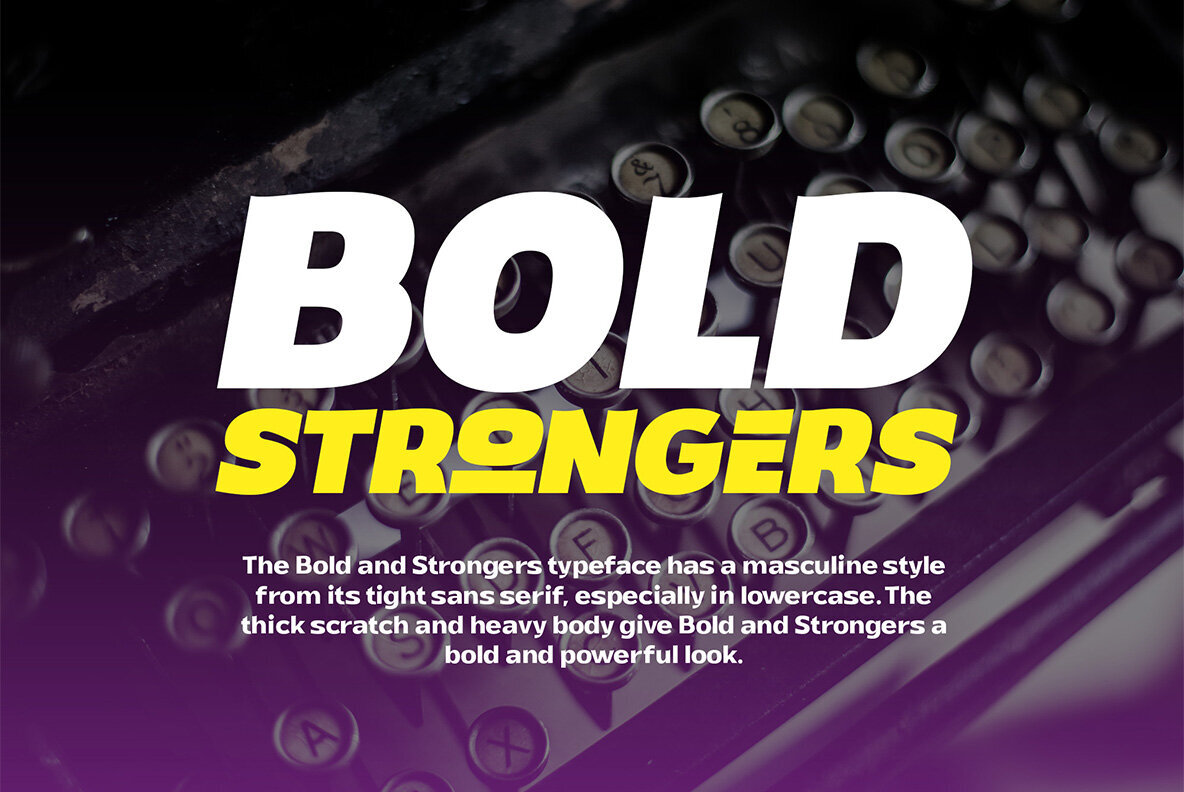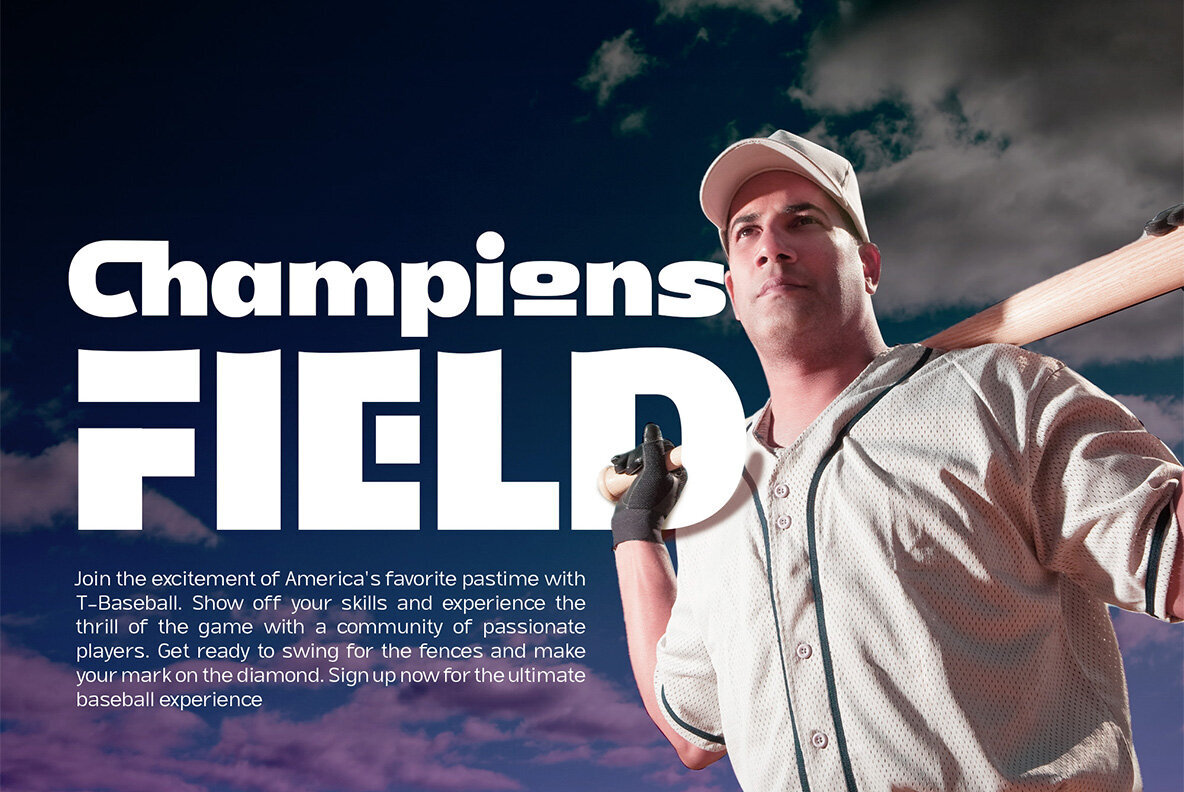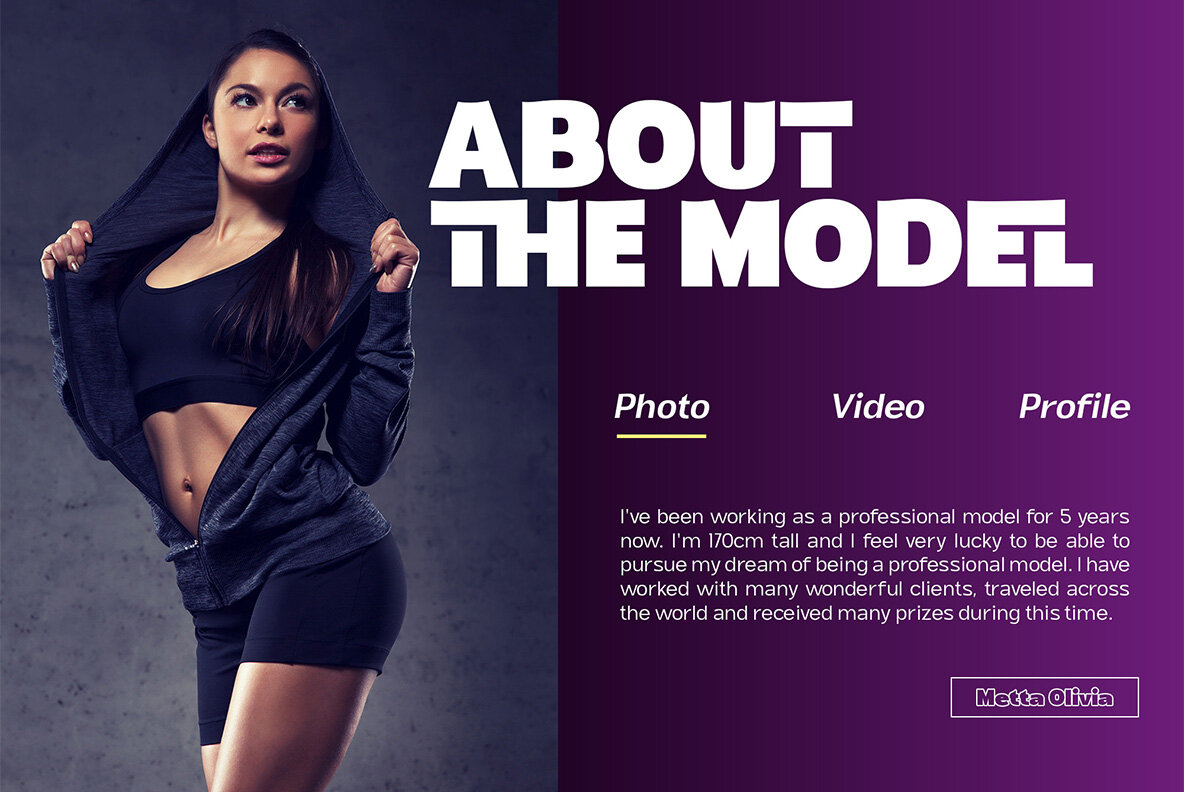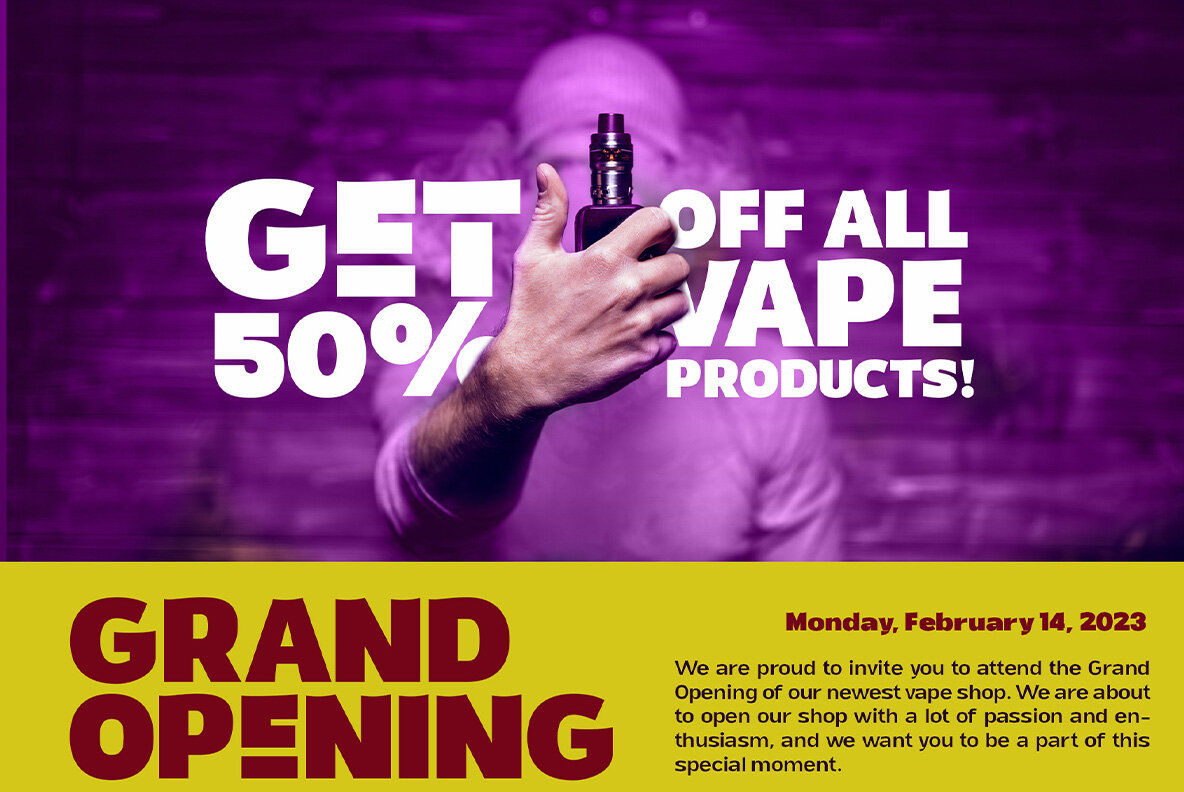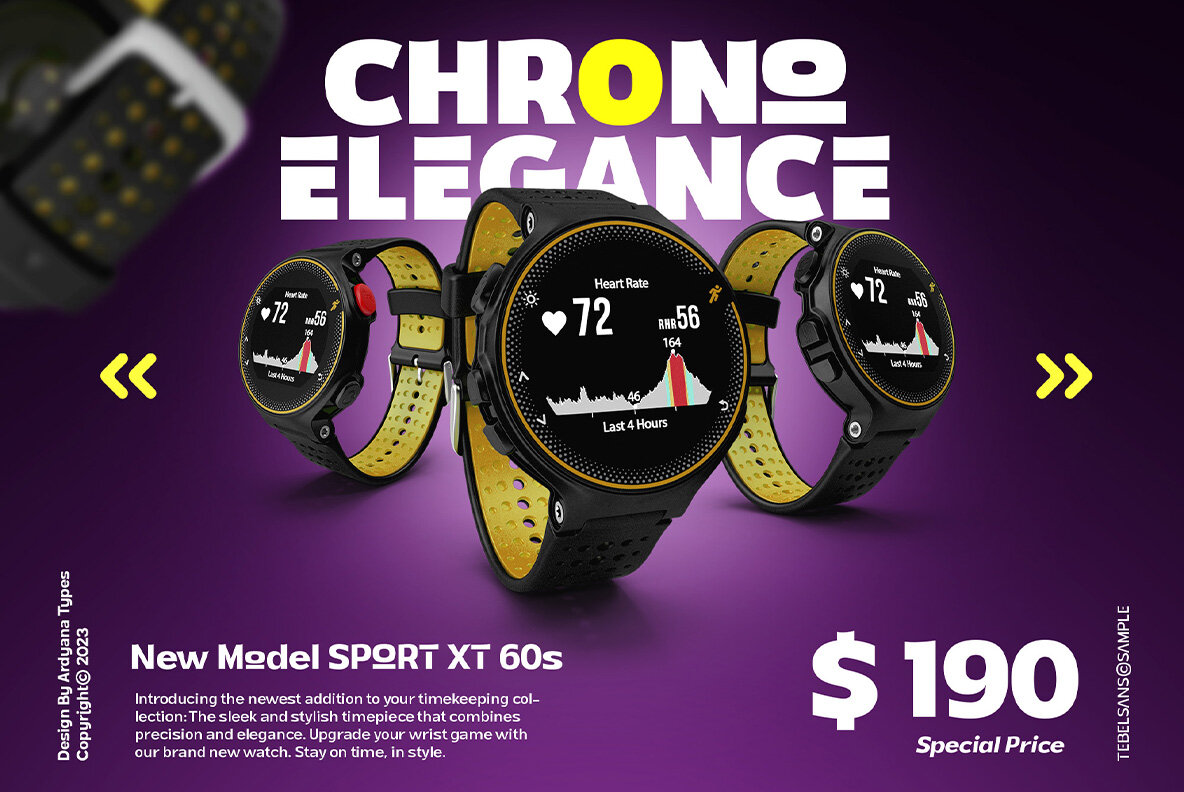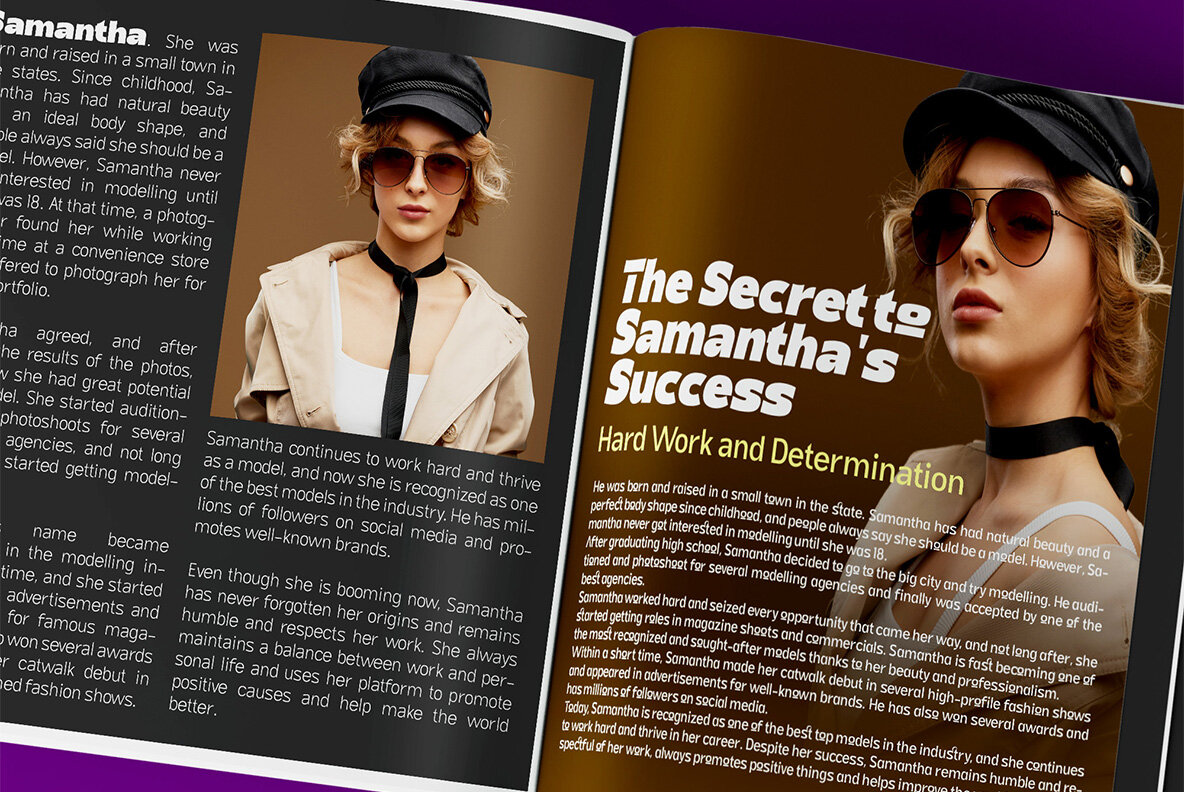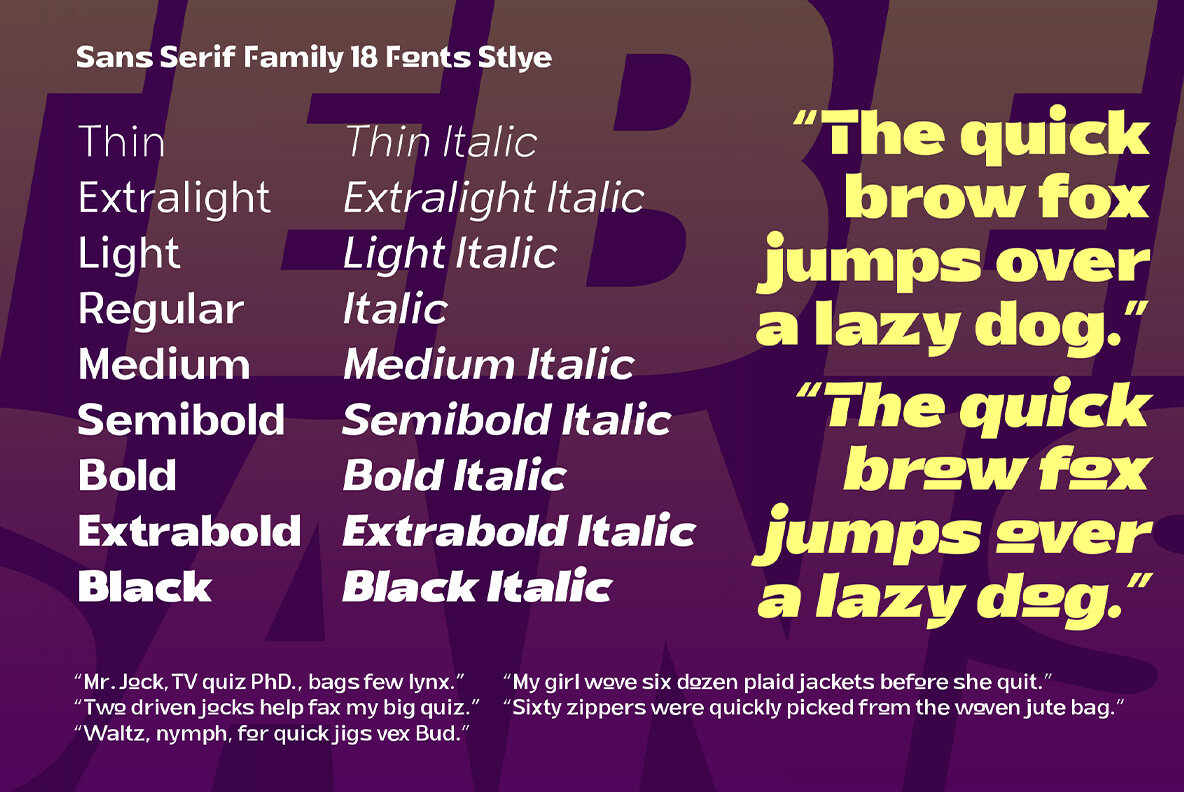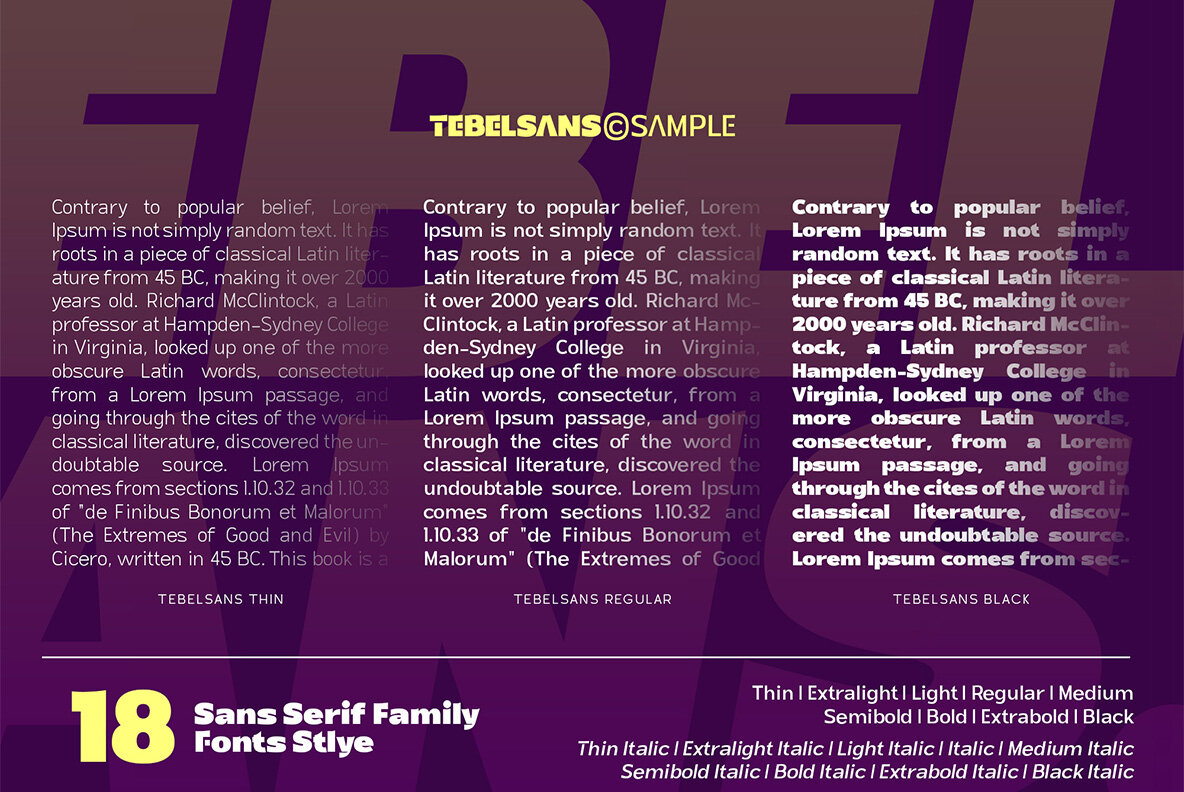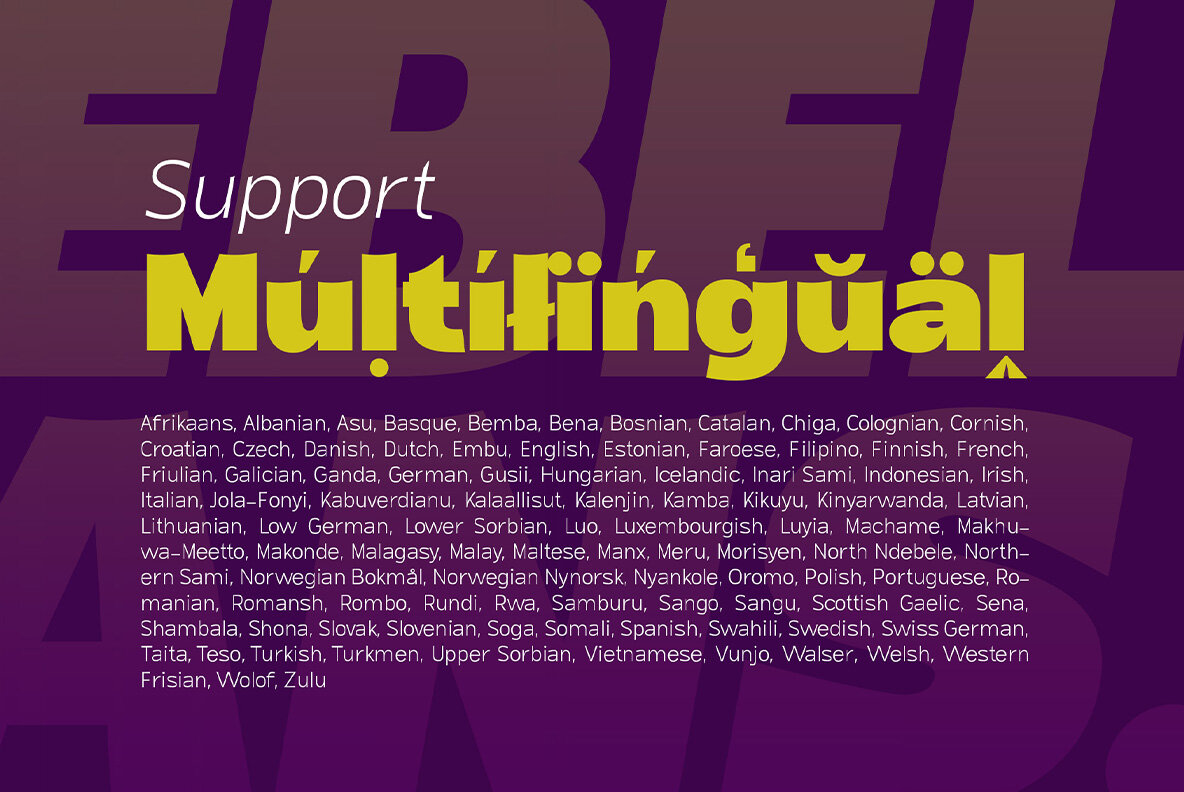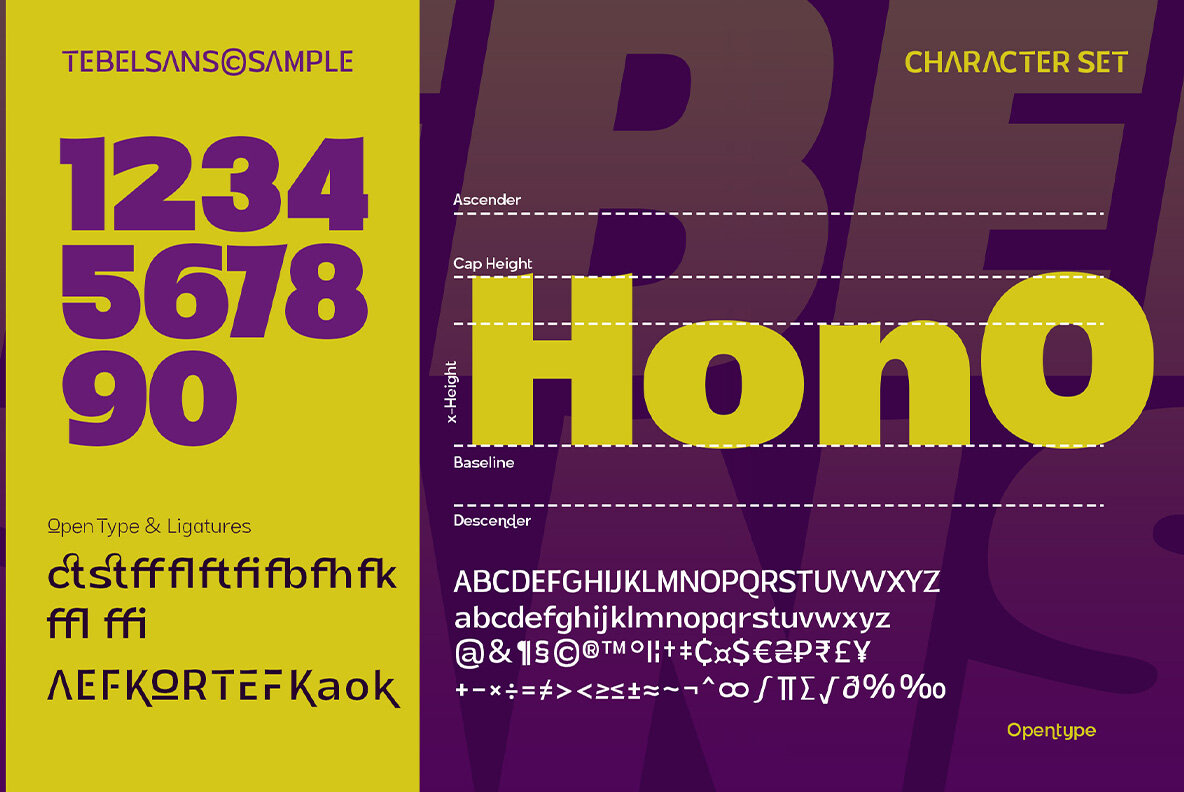
Tebel Sans Font
Tebel Sans is a modern, ultra-bold sans-serif font perfect for all kinds of designs. With nine different thickness variations and two different typefaces (regular and italic), this font is the ideal choice for your designs. Its unique thickness makes your design look like a bold and elegant title. It is also a practical body text, with a large selection of different font families available in Opentype features such as multilingual ligature. Alternative fonts make it even more attractive and valuable for various graphic designs. Tebel Sans has a uniqueness that makes your designs look more powerful and modern.